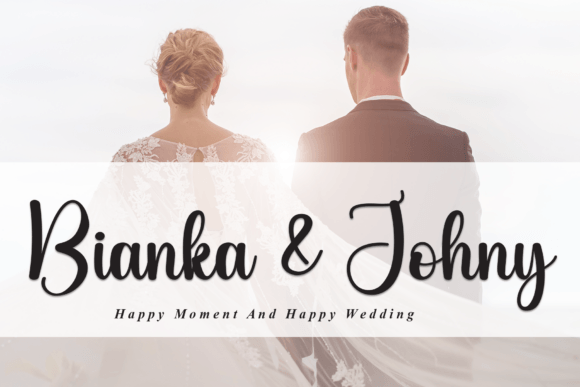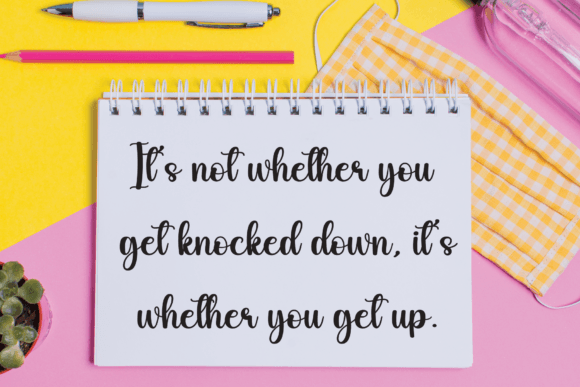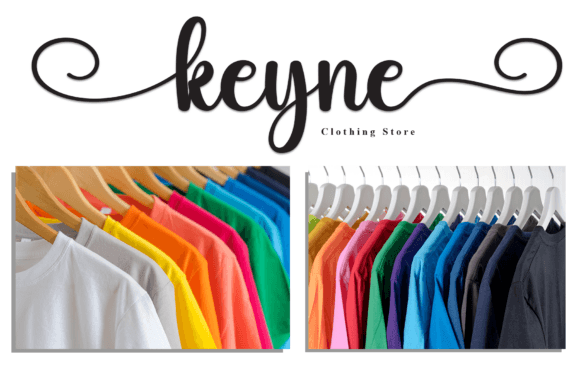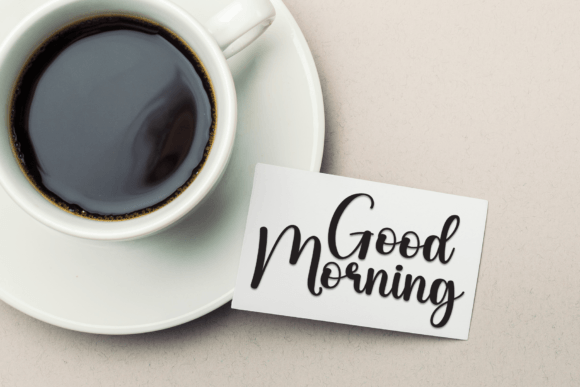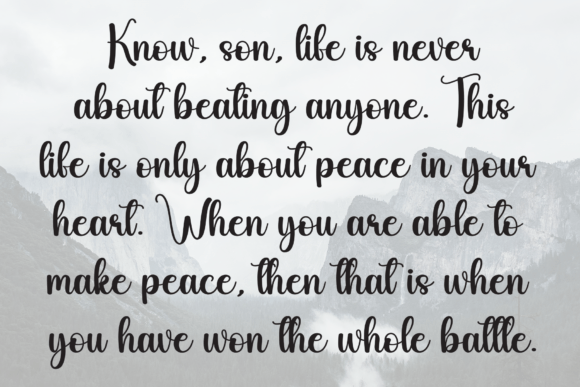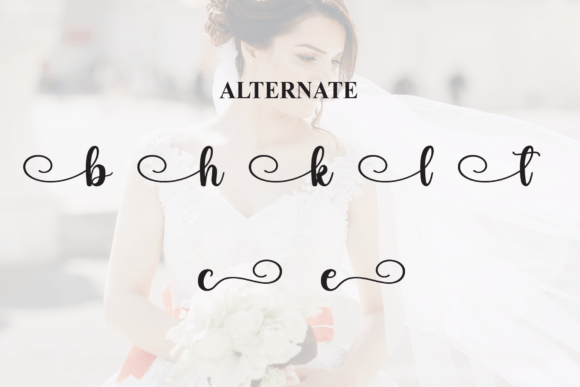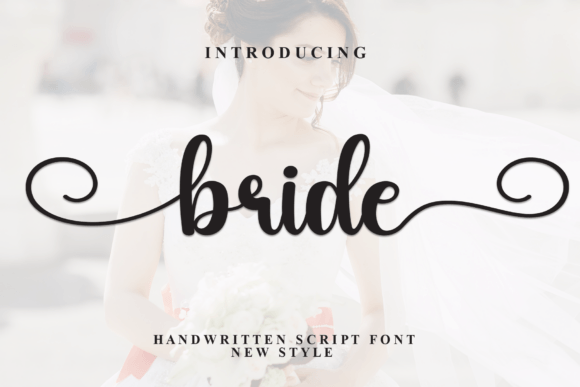
Bride Font: The Ultimate Choice for Whimsical and Charming Designs
Are you a designer or crafter looking for a font that can add a touch of whimsy and charm to your creations? Look no further than the Bride Font, an affectionate and amiable handwritten font that’s perfect for crafting stunning wedding invitations, heart-warming greeting cards, and more.
What Makes Bride Font So Special?
The Bride Font is a delightful and playful font that’s designed to infuse an endearing charm into every creation. Its immaculate design makes it perfect for a variety of design projects, from wedding invitations and greeting cards to social media graphics and more. With its spirited flair, this font is sure to elevate your designs and make them stand out from the crowd.
Key Features of Bride Font
- Handwritten Design: The Bride Font features a beautiful handwritten design that’s both elegant and playful.
- Whimsical and Charming: This font is perfect for adding a touch of whimsy and charm to your designs.
- Perfect for Wedding Invitations: The Bride Font is ideal for crafting stunning wedding invitations that will make your clients swoon.
- Versatile: This font can be used for a variety of design projects, from greeting cards and social media graphics to posters and more.
Tips for Getting the Most Out of Bride Font
Why Designers and Crafters Love Bride Font
Designers and crafters love the Bride Font for its unique and charming design. It’s the perfect choice for anyone looking to add a touch of whimsy and charm to their creations. With its versatility and ease of use, it’s no wonder that this font is a favorite among designers and crafters.